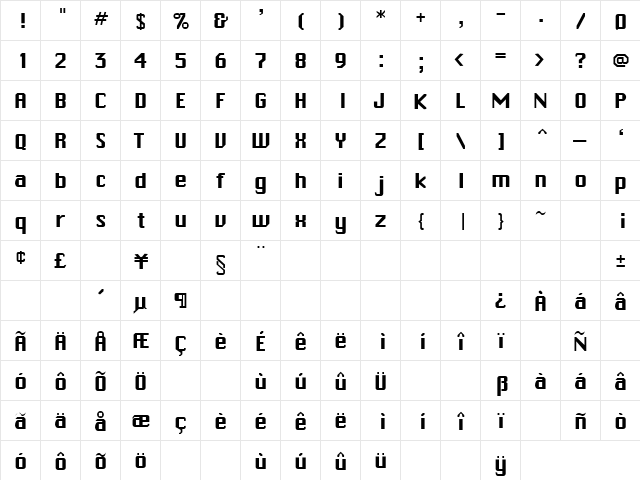
Marathon 11 Regular
Marathon 11 offers clean, dependable letterforms without strong stylistic allegiance, making it a practical choice for designers who need flexibility.